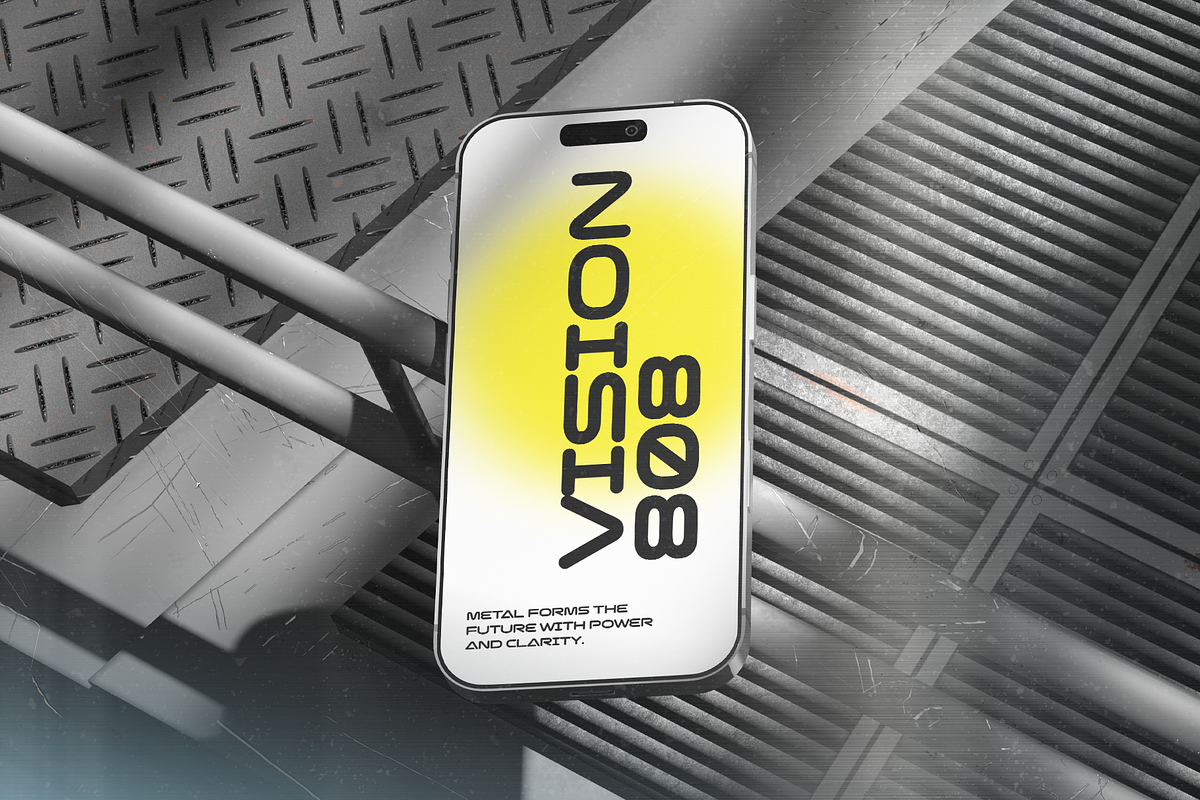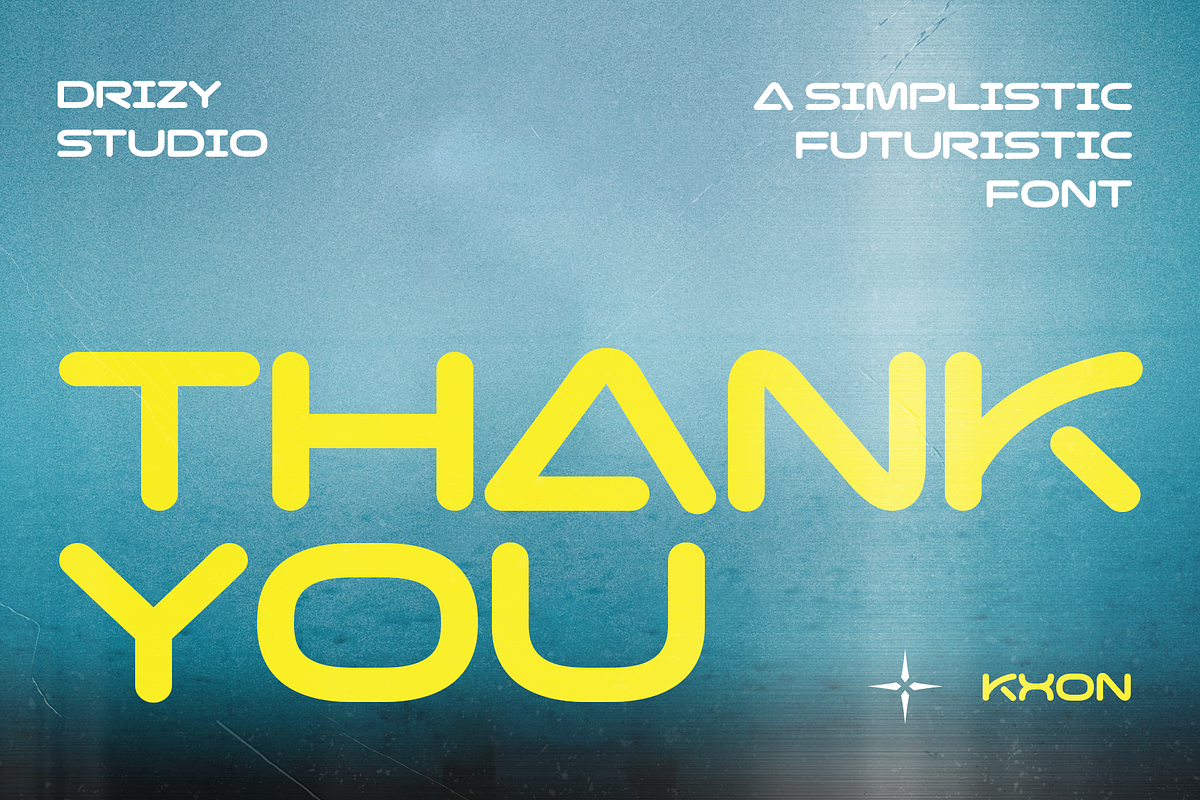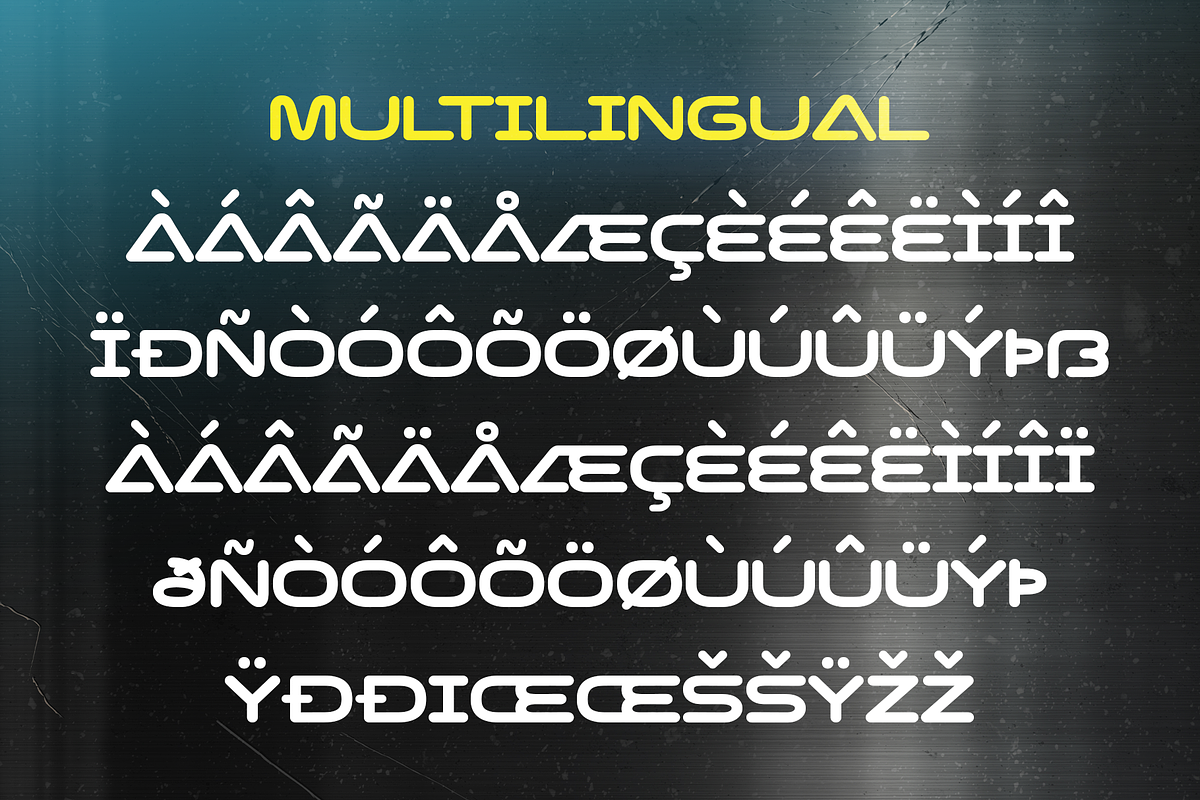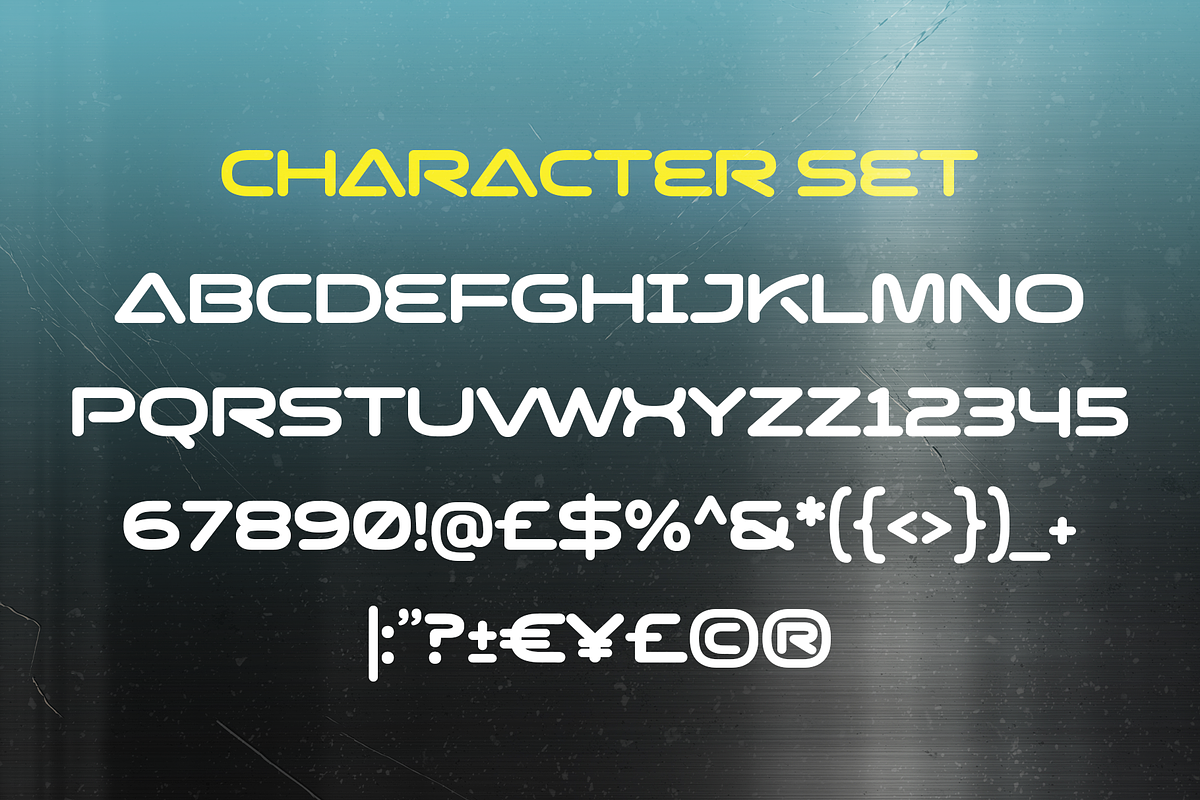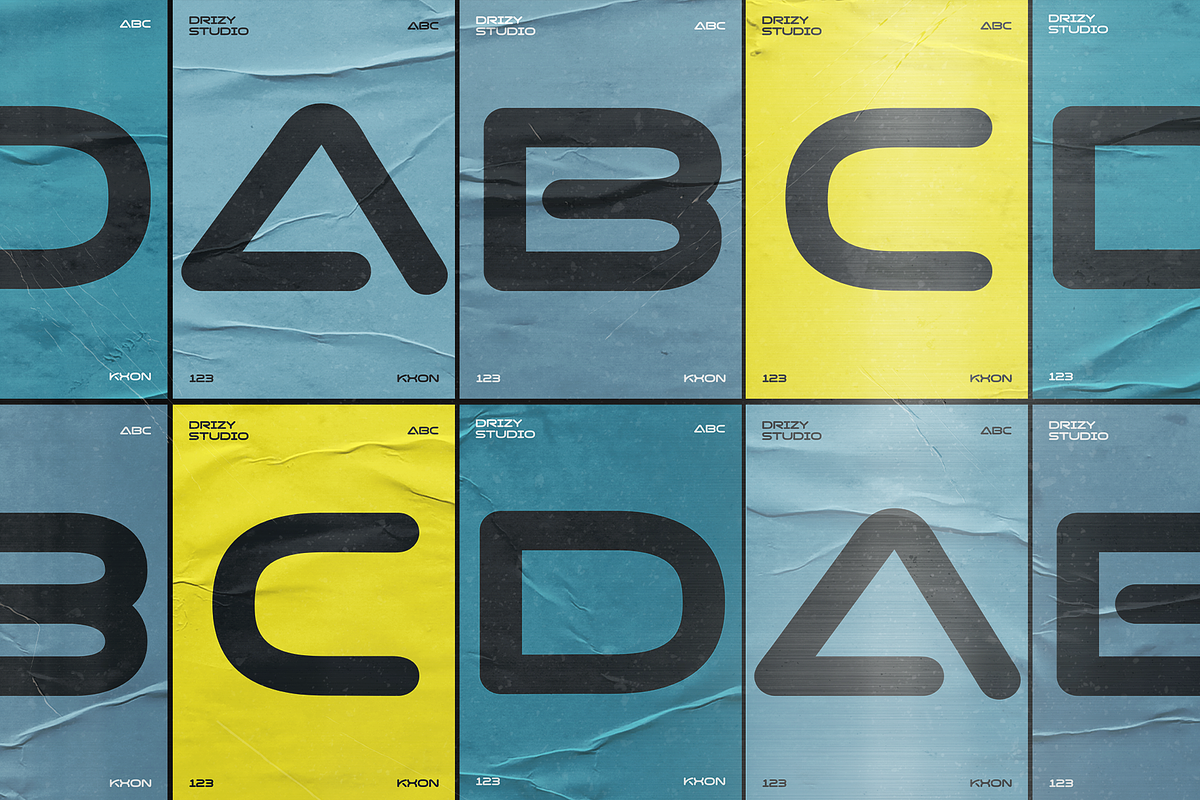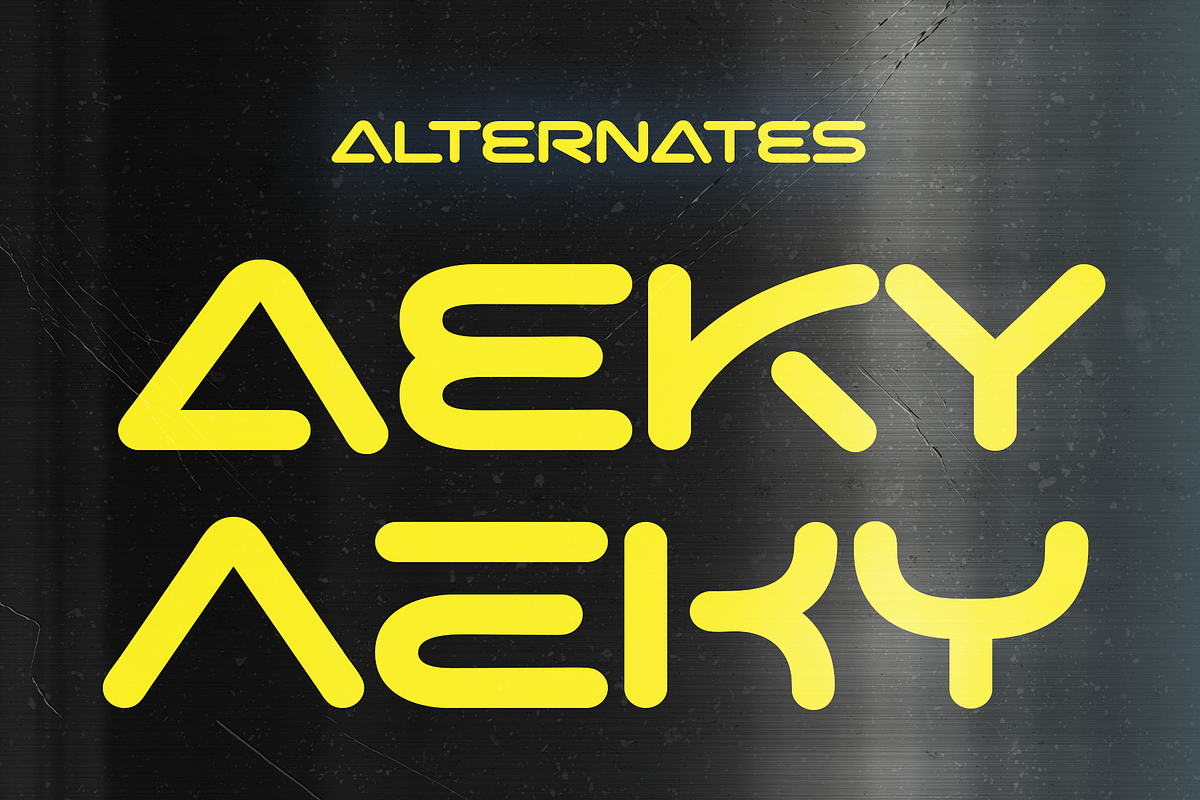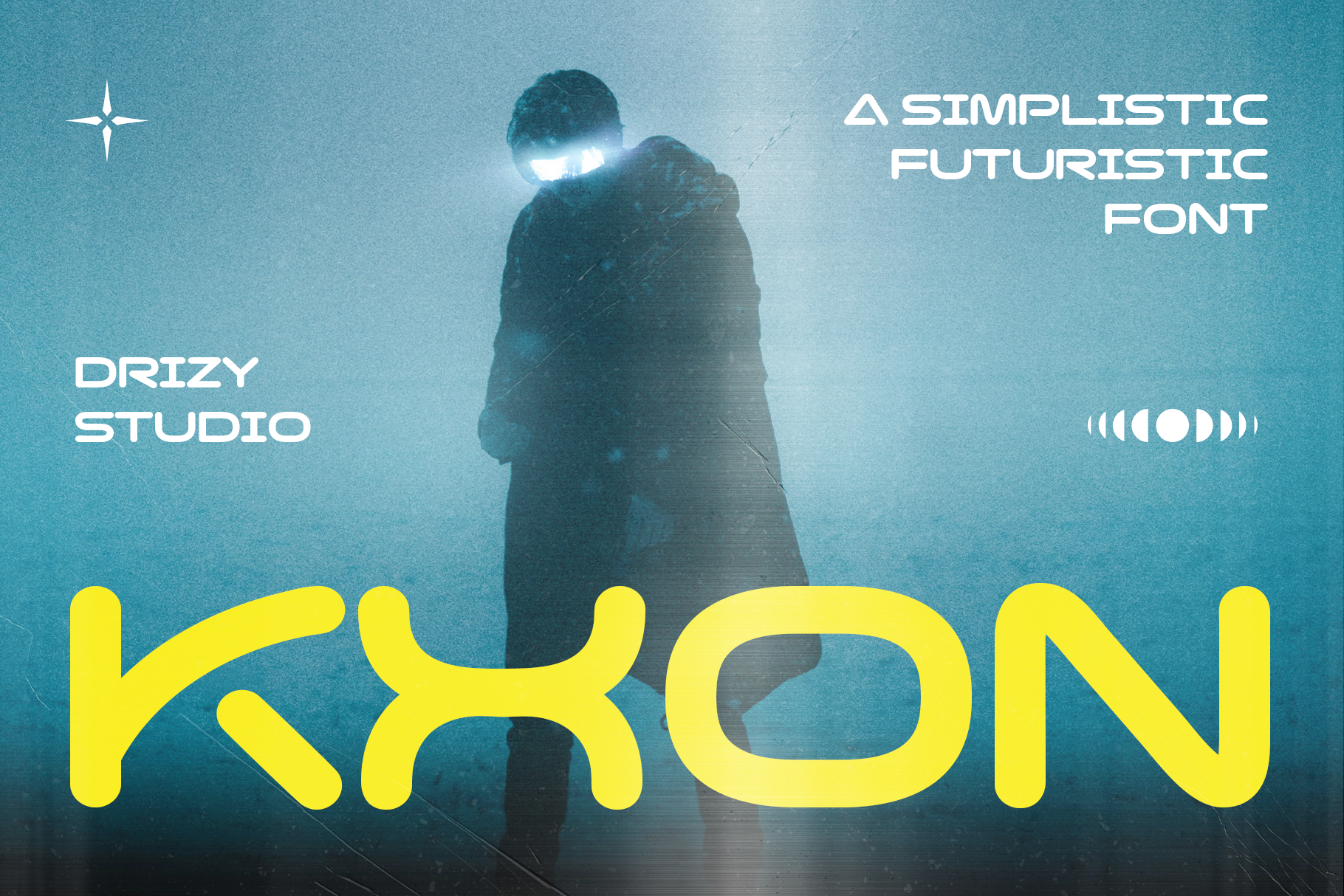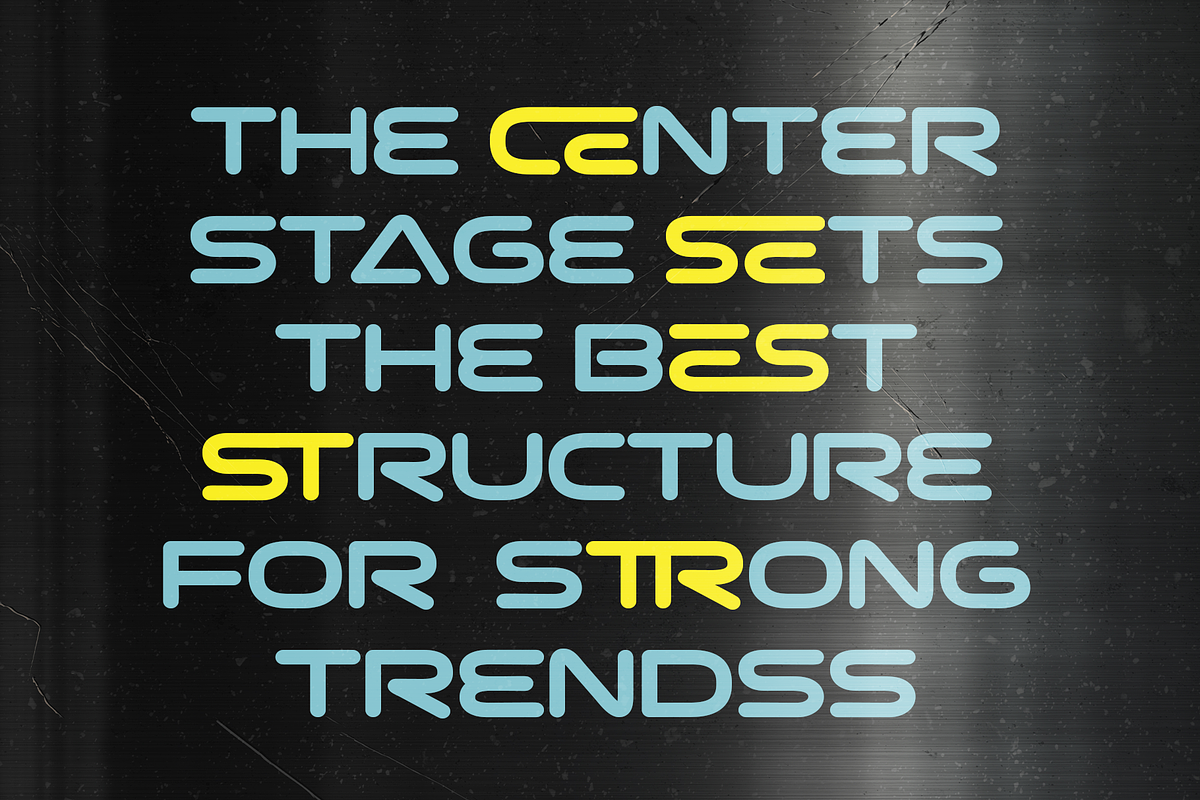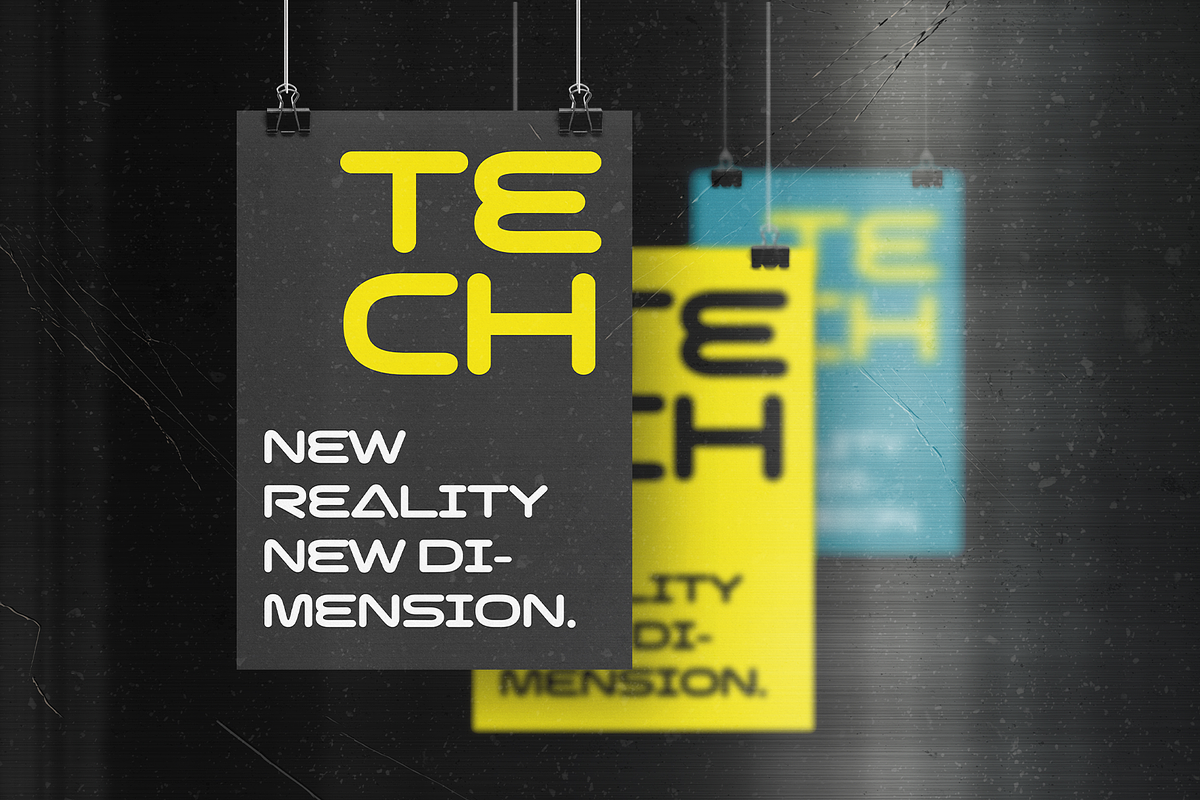
Kxon - Simplistic Futuristic Font
Kxon-A is a simplistic futuristic font that blends clean geometry with smooth, flowing curves. Designed with a sleek monoline structure, this typeface delivers a modern and approachable look while maintaining a strong sense of innovation. Its rounded forms and balanced proportions create a contemporary aesthetic that feels both minimal and forward-thinking.
Perfect for technology branding, startup identities, digital products, gaming projects, sci-fi themes, posters, logos, packaging, and modern editorial designs, Kxon-A brings clarity and personality to every composition. The curvy letterforms soften the futuristic style, making it versatile for both professional and creative applications.
Whether you're crafting a cutting-edge brand or designing a sleek visual experience, Kxon-A offers a distinctive blend of simplicity, elegance, and futuristic appeal.
Elevate and explore the design possibilities with this Curvy Monoline Font!